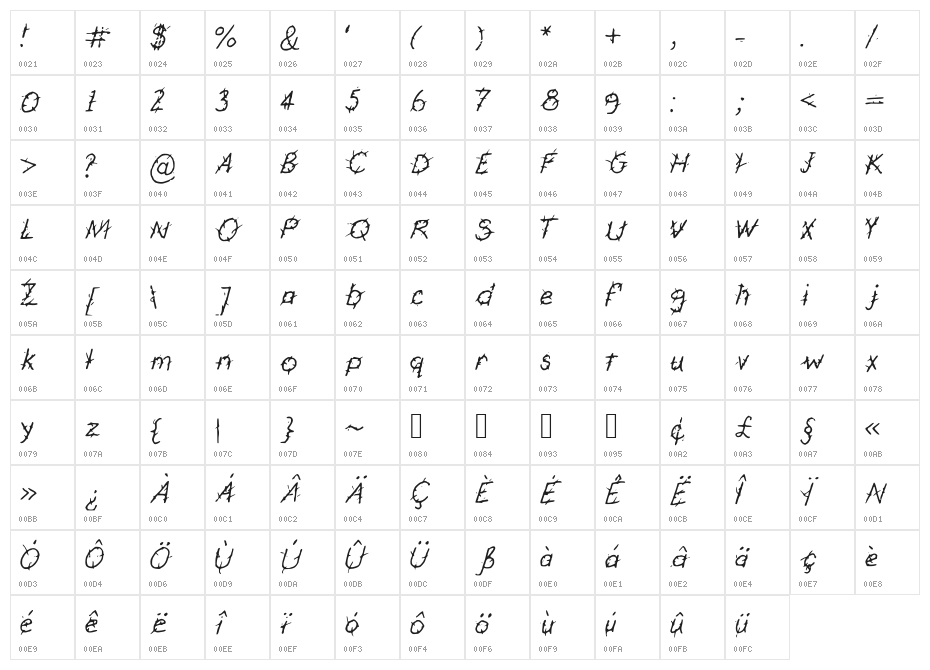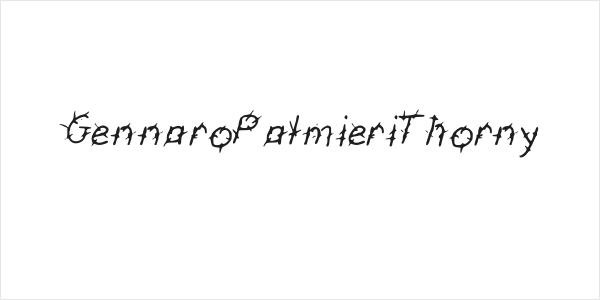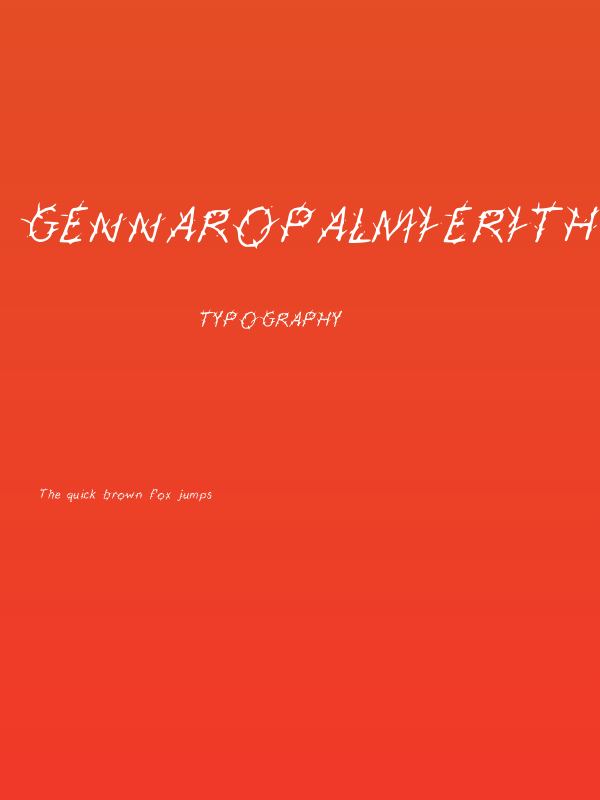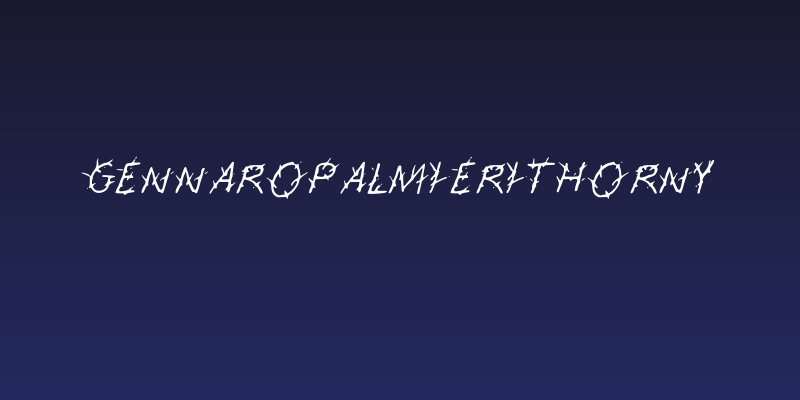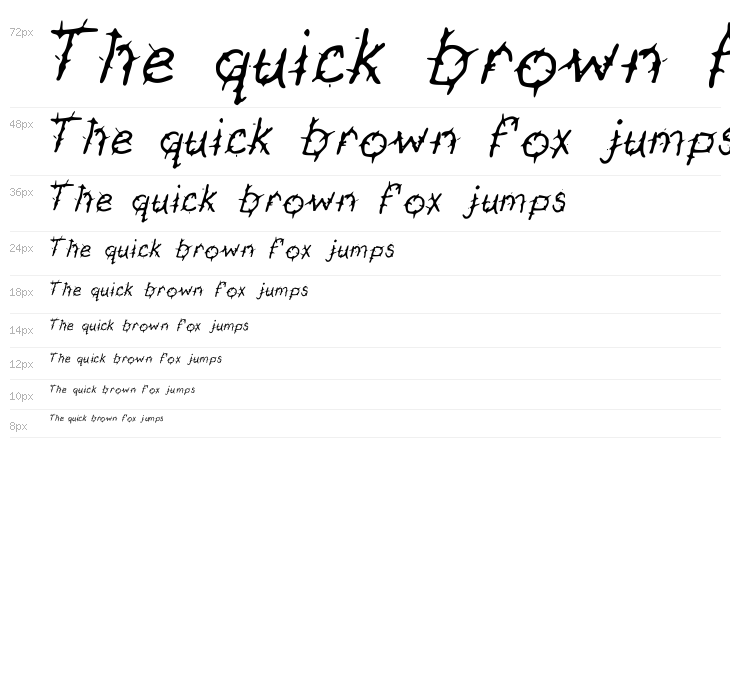
GennaroPalmieriThorny Font
GennaroPalmieriThorny Description
This font features a unique and edgy design, with each character appearing as if it's entwined with thorny vines. The letters are jagged and irregular, giving off a wild and untamed aesthetic. The uppercase and lowercase letters maintain this thorny motif, creating a cohesive look throughout the alphabet. Numbers and special characters follow the same style, ensuring consistency. The overall appearance is striking and bold, making it ideal for projects that require a dramatic and eye-catching typeface.